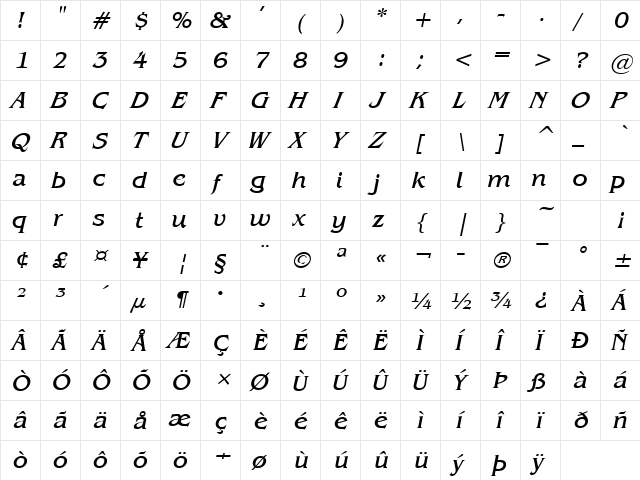
Gazette Italic
Design Context for Gazette Typeface
Gazette takes a measured approach to typography — its balanced proportions and neutral character make it a reliable workhorse for both digital and print work. Its italic angle brings a sense of urgency and motion to the letterforms.
Pro Tip: Try Gazette for annotation and caption copy alongside an upright companion — the contrast in angle creates a dynamic but ordered typographic system.